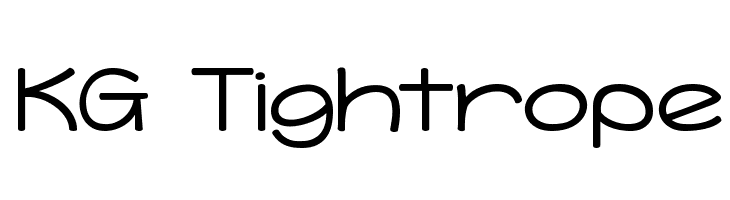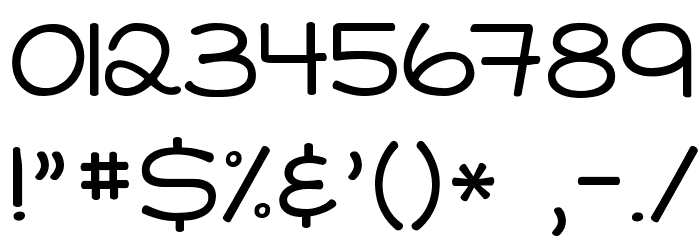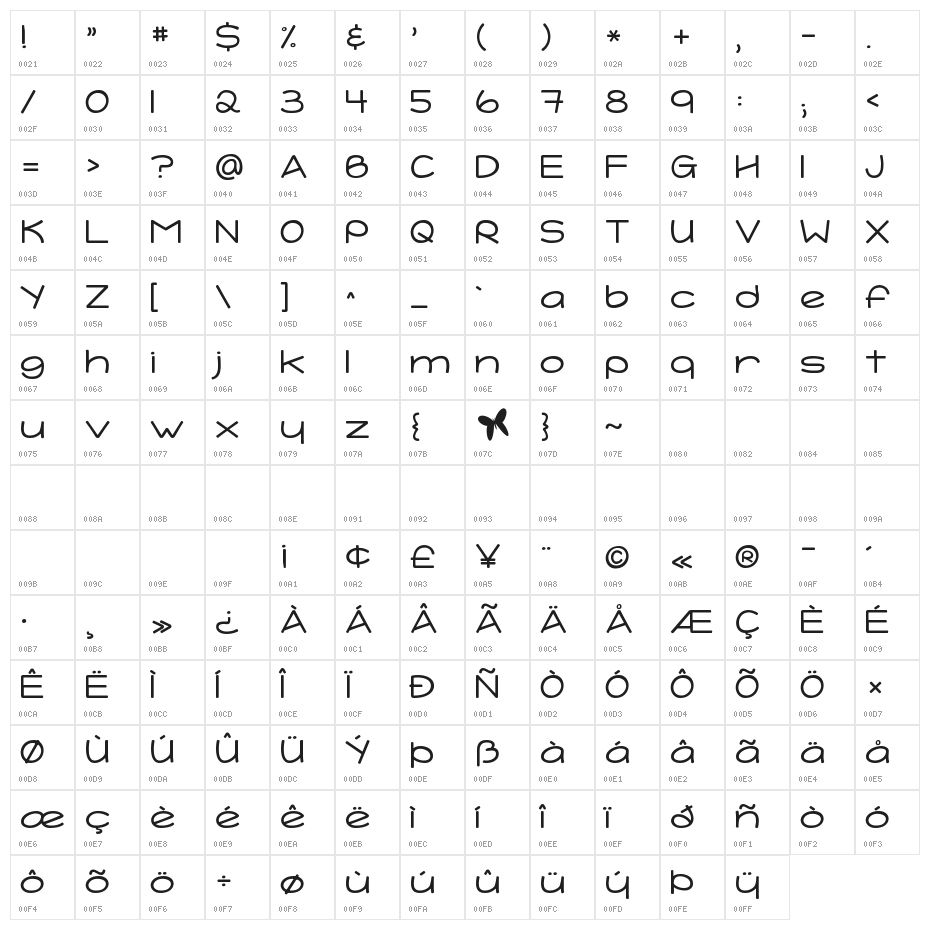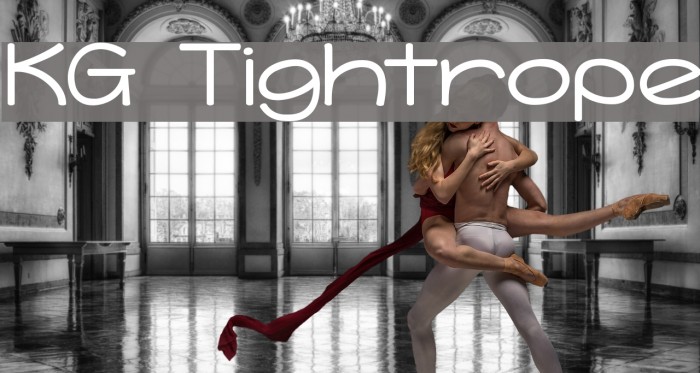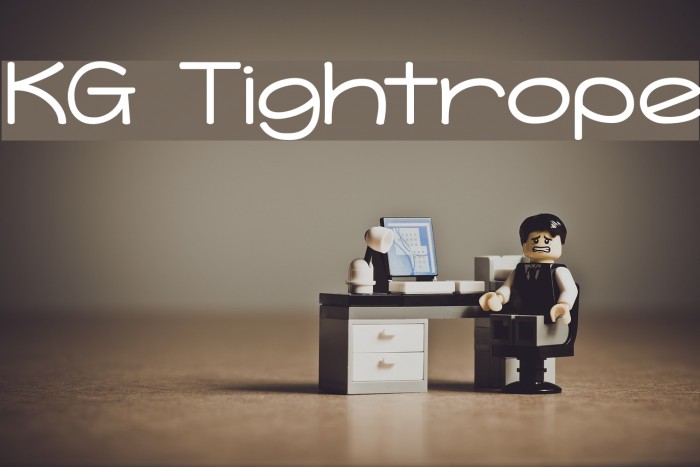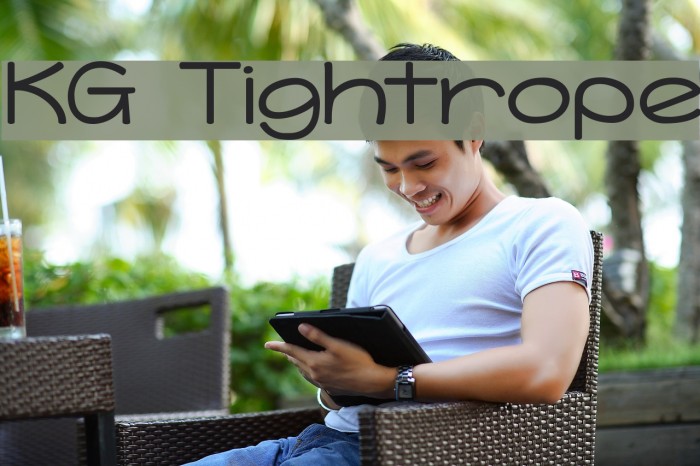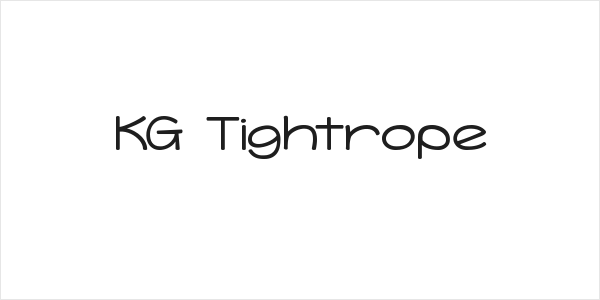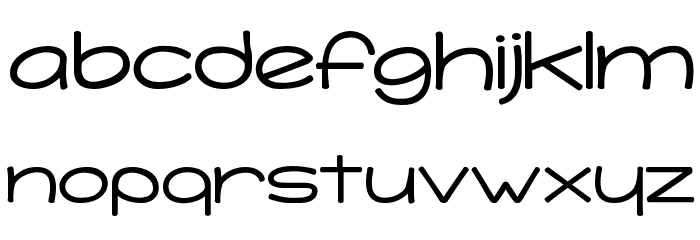
KG Tightrope Font
KG Tightrope Description
This font features a playful and rounded design, characterized by its smooth curves and uniform stroke width. The letters are evenly spaced, creating a harmonious and balanced appearance. The uppercase and lowercase letters maintain a consistent style, with a slight whimsical touch that adds personality. The numerals and special characters follow the same design principles, ensuring a cohesive look across all text elements. This font's friendly and approachable aesthetic makes it suitable for a variety of creative projects.
| Proposed Projects | Ideal for children's books, playful branding, greeting cards, and educational materials. |